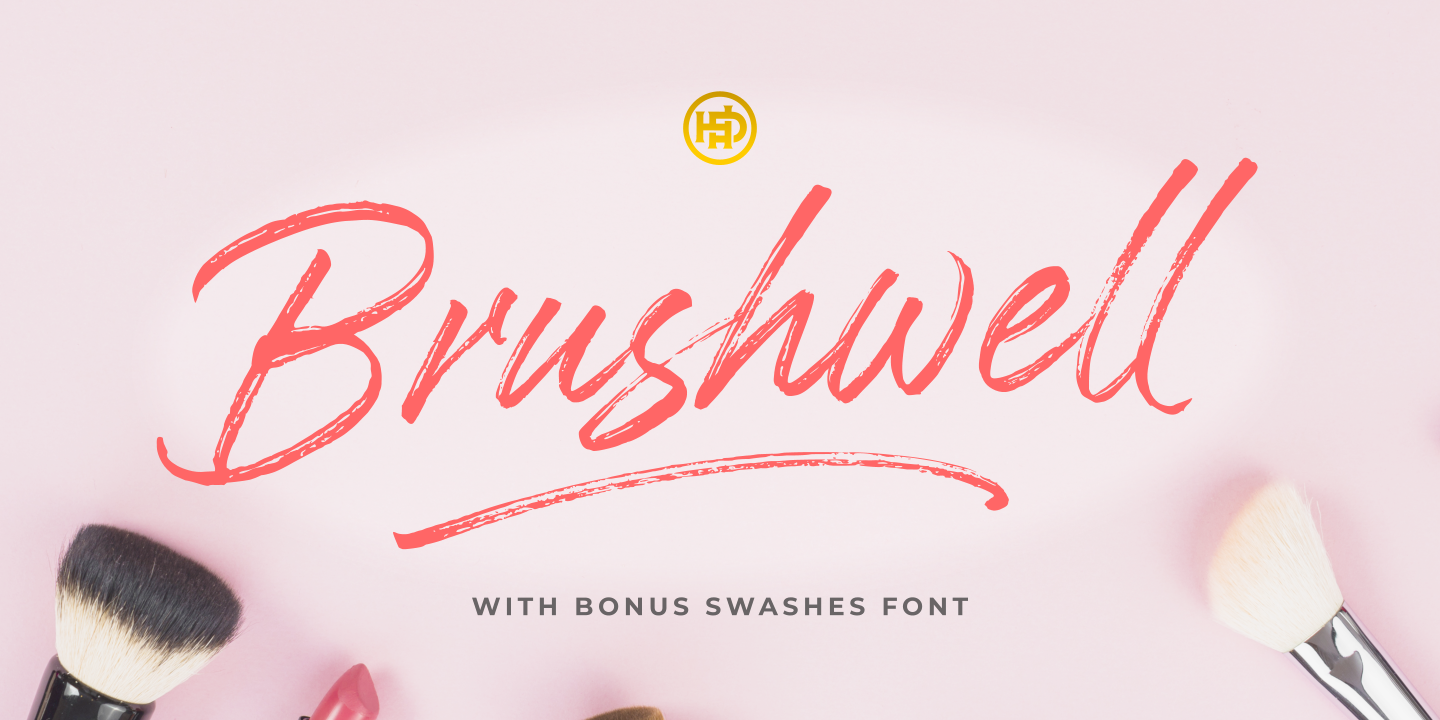
Brushwell Font is perfect for artisan paint brush branding, fine art gallery signage, watercolor workshop materials, creative studio identities, artistic supply packaging, painterly poster designs, creative expression campaigns, and inspired design projects that require expressive typography with brush stroke character and artistic craftsmanship sophistication.
This Brushwell Font is exciting because it captures the fluid motion and organic beauty of brush painting with flowing letterforms that seem painted with fresh strokes of artistic inspiration, featuring handcrafted character construction that reflects the spontaneous nature of brush artistry while maintaining excellent readability for creative applications and artistic communications.
The Brushwell Font family includes expressive weights with brush styling, complete character sets with flowing uppercase and lowercase letters, artistic numerals, painterly punctuation, and creative symbols that provide comprehensive typography solutions for art and creative design projects requiring authentic brush aesthetics and artistic appeal.
Perfect for creating inspiring artistic communications and expressive creative brand identities, Brushwell Font Free Download delivers the flowing typography that transforms text into beautiful expressions of brush artistry and creative excellence. This distinctive typeface embodies the essence of painterly expression and artistic freedom, making it essential for projects celebrating fine arts, creative expression, artistic craftsmanship, and any design requiring expressive character with authentic artistic sophistication and timeless painterly appeal that captures the spontaneous beauty of brush strokes and artistic inspiration.